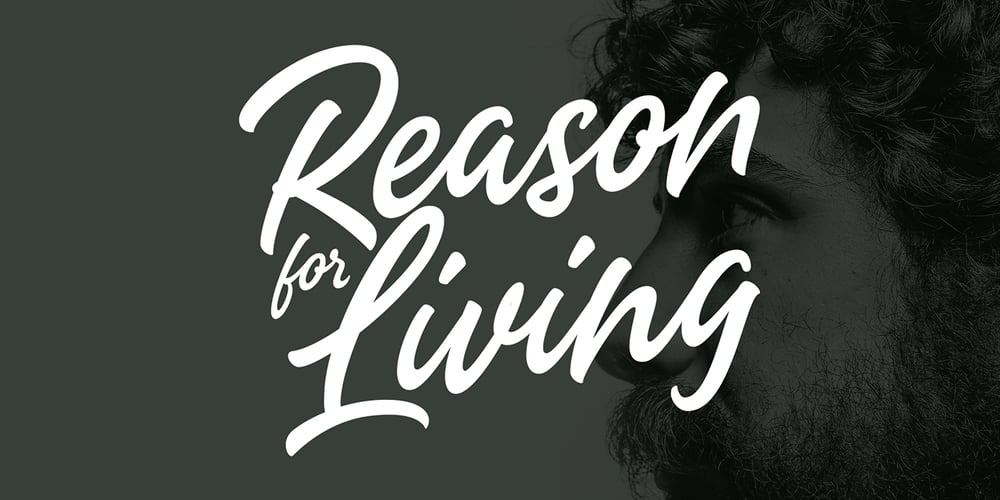
Headey
Headey font
Headey Font Family was designed by Alex Couture and published by Alex Couture. Headey contains 1 styles and family package options. Headey is a clean and lining brush script with a bouncing baseline. Include OpenType alternates and common ligatures. Try the alternates and ligatures to give your designs looks good, fresh, casual, stylish, and modern. That’s it! I really hope you enjoy it.